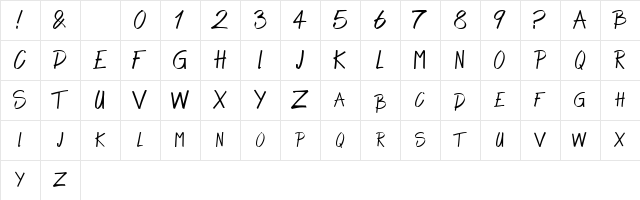
Alpha Thin Regular
Design Context for Alpha Thin
Alpha Thin is a composed and adaptable typeface that performs quietly and consistently across a wide range of design contexts. Its slender proportions lend an understated elegance to any composition.
Pro Tip: Use Alpha Thin in both headline and body roles to test its range before committing to a single application.